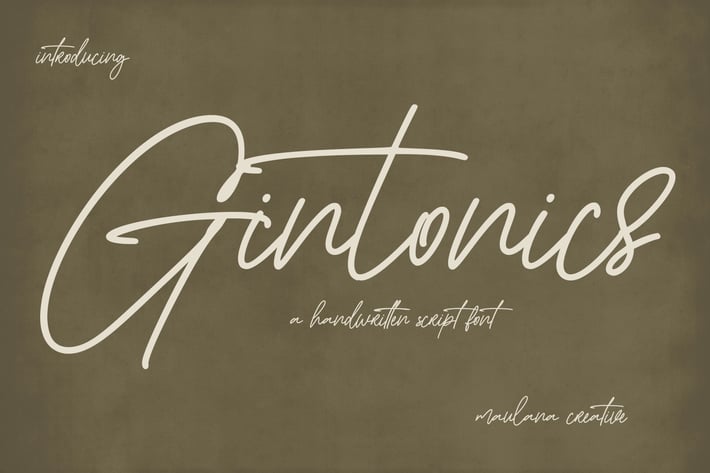
Gintonics Signature Script Font
Gintonics is a casual signature script font. With light mono-line consist stroke, fun character with a bit of ligatures and alternates. To give you an extra creative work. Gintonics font support multilingual more than 100+ language. This font is good for logo design, Social media, Movie Titles, Books Titles, a short text even a long text letter and good for your secondary text font with sans or serif. Make a stunning work with Gintonics font.